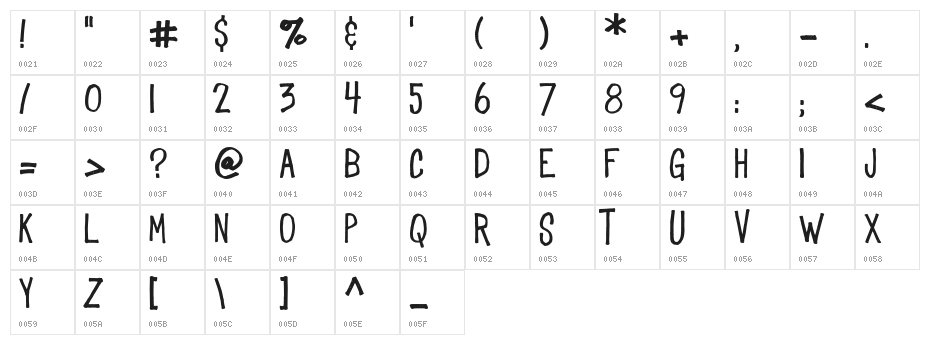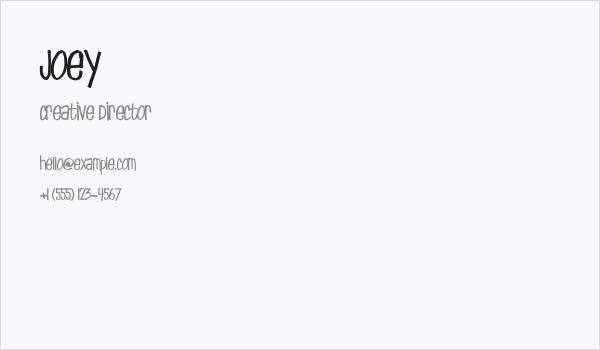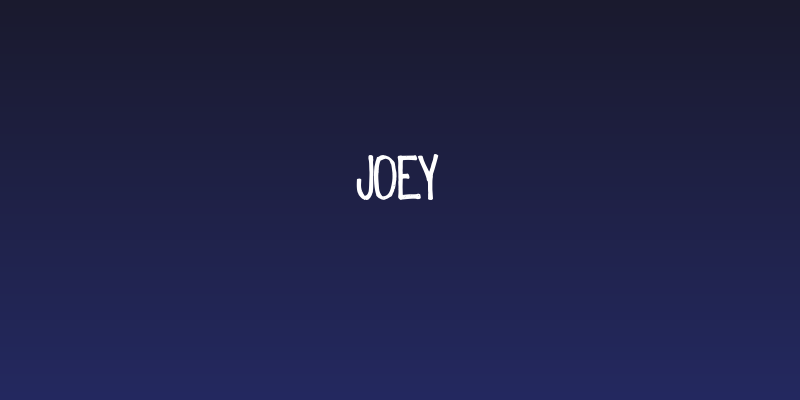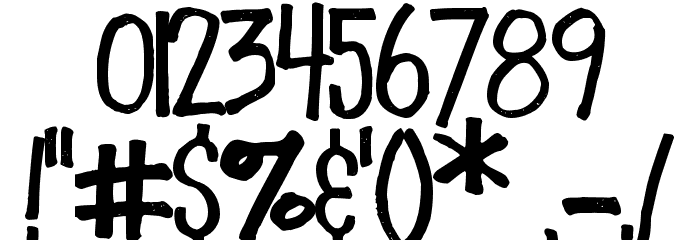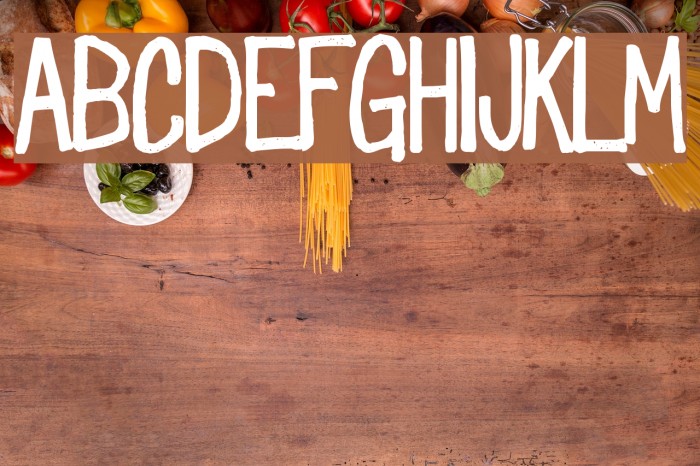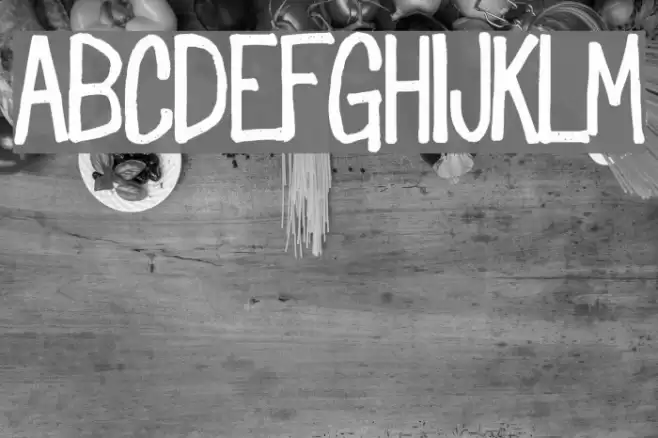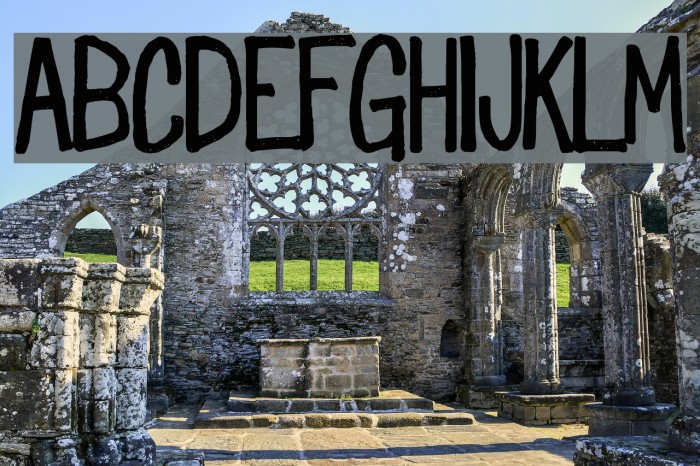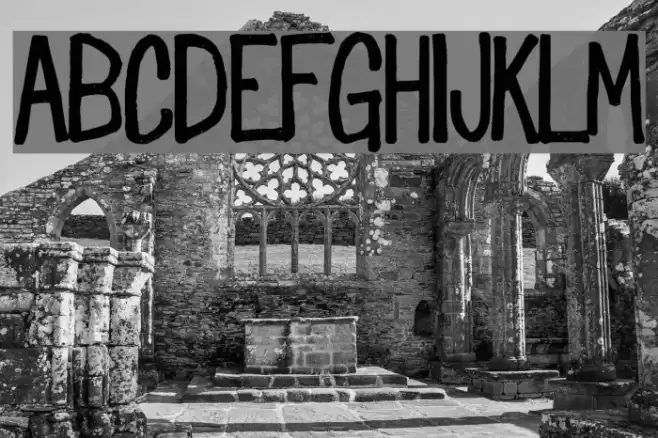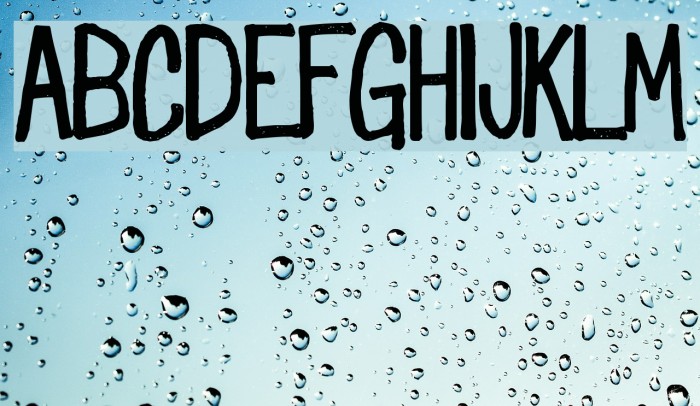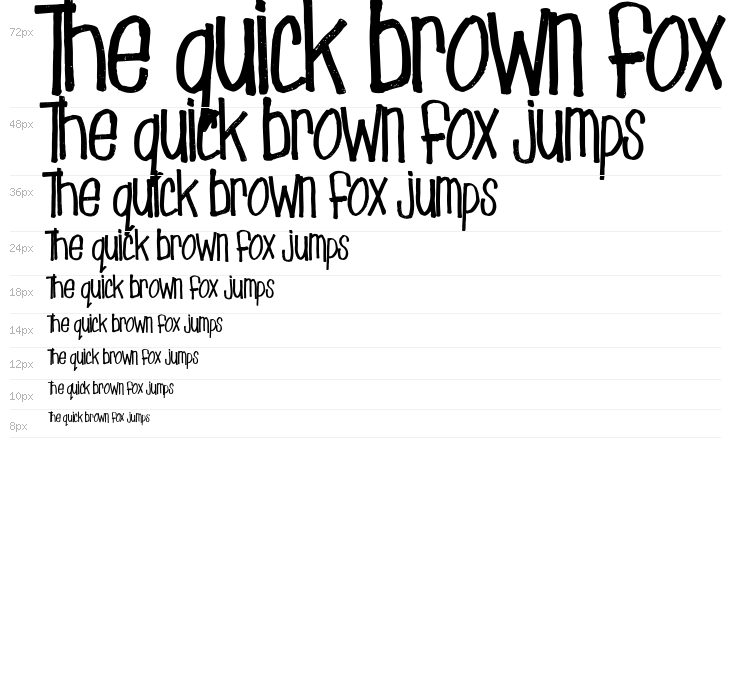
Joey Font
Joey Description
This font features a playful, hand-drawn style with a slightly irregular and casual appearance. The letters are bold and have a rough texture, giving them a dynamic and energetic feel. The uppercase and lowercase characters are distinct, with the uppercase letters being taller and more pronounced. The numbers and special characters maintain the same playful aesthetic, making the font versatile for various creative projects. The overall look is informal and artistic, suitable for designs that require a personal touch.
| Use Case | Logos, Headlines, Posters |
| Proposed Projects | Ideal for children's book covers, playful posters, greeting cards, and creative branding projects. |